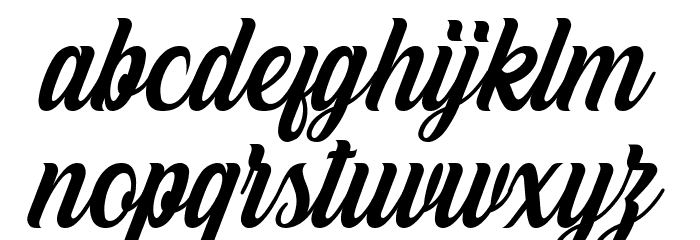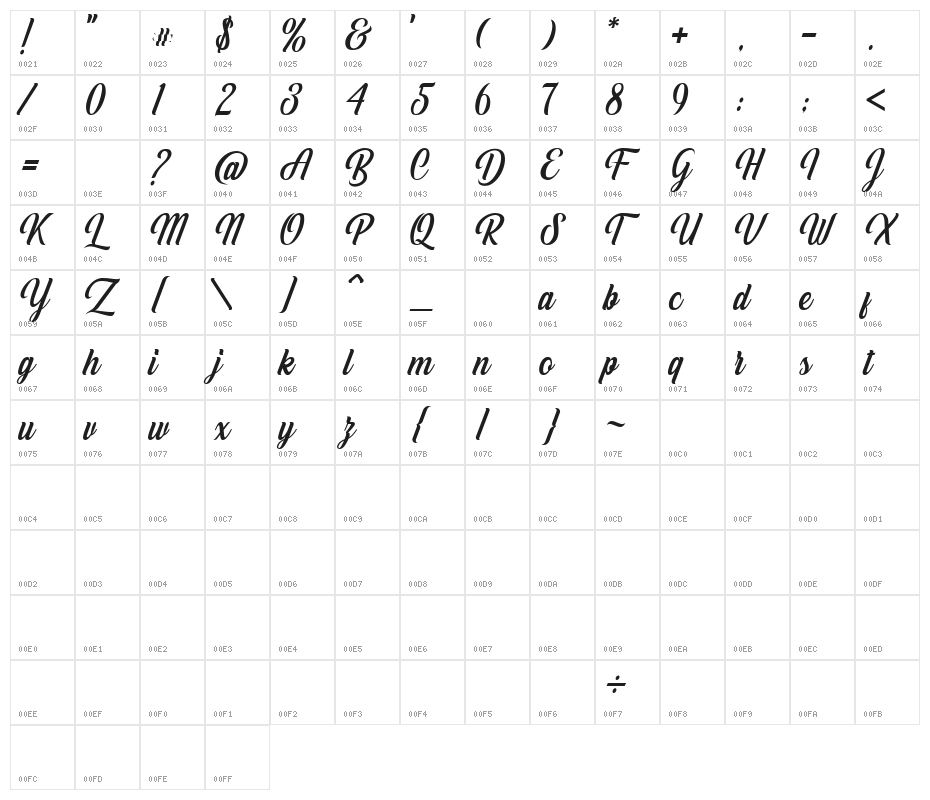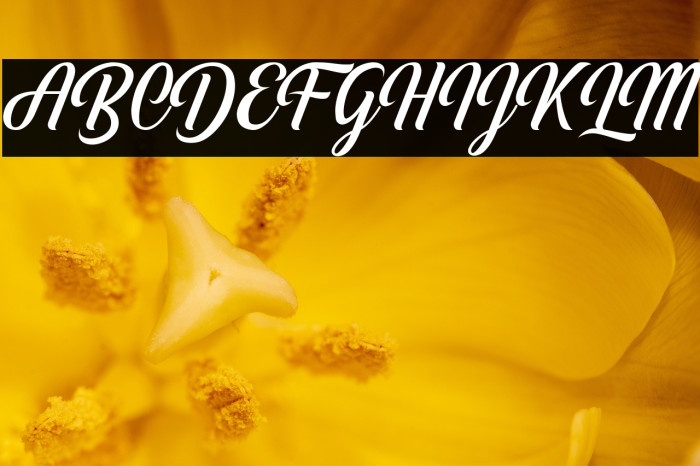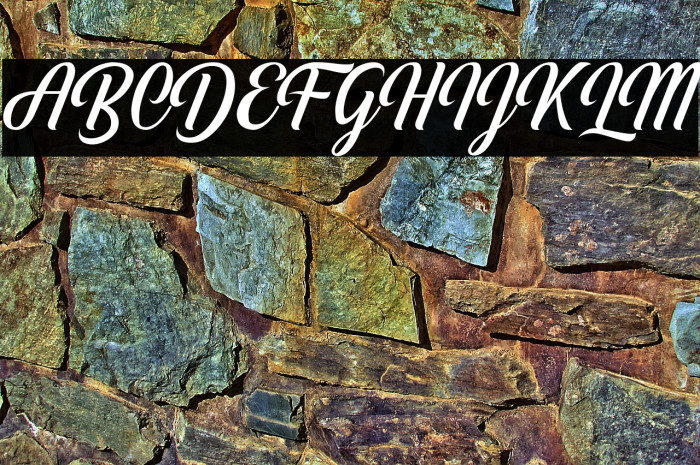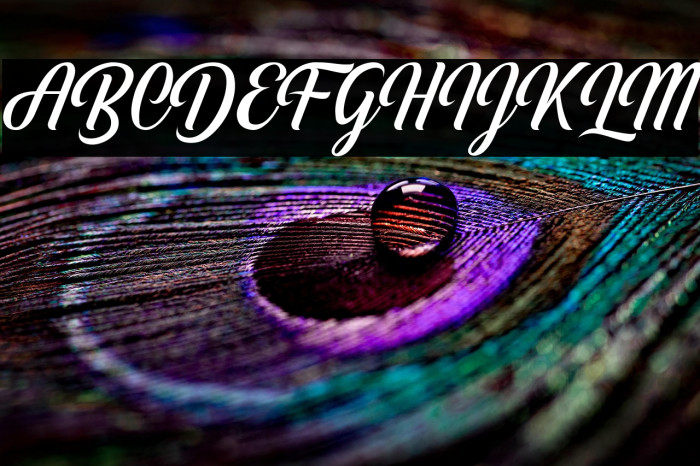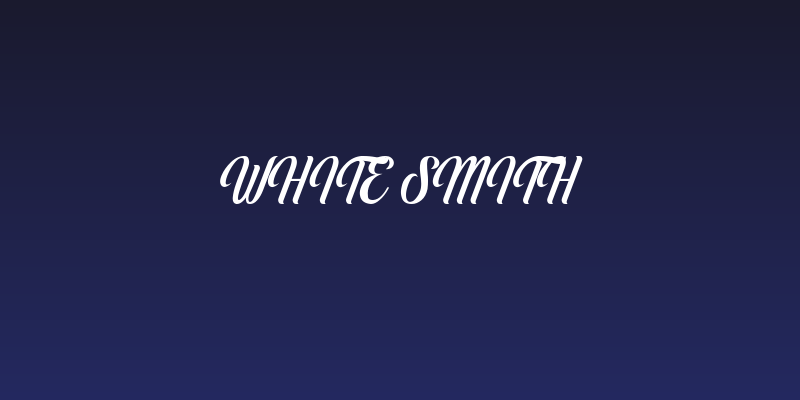
White Smith Font
This font features a bold, cursive style with elegant, flowing lines that give it a sophisticated and dynamic appearance. The uppercase letters are tall and slightly slanted, with smooth curves and a consistent stroke width that adds to its readability. The lowercase letters maintain the same fluidity, with some characters featuring distinctive loops and swashes that enhance its decorative appeal. The numerals are proportionate and maintain the cursive style, ensuring uniformity across the character set. Special characters are well-integrated, maintaining the overall aesthetic. This font is ideal for projects that require a touch of elegance and flair.
A bold, cursive font with elegant, flowing lines and a sophisticated style.
- Font: White Smith
- Proposed Projects: Ideal for wedding invitations, elegant branding, greeting cards, and decorative headlines.
- Category: Script
- Use Case: Headlines, Logos, Invitations